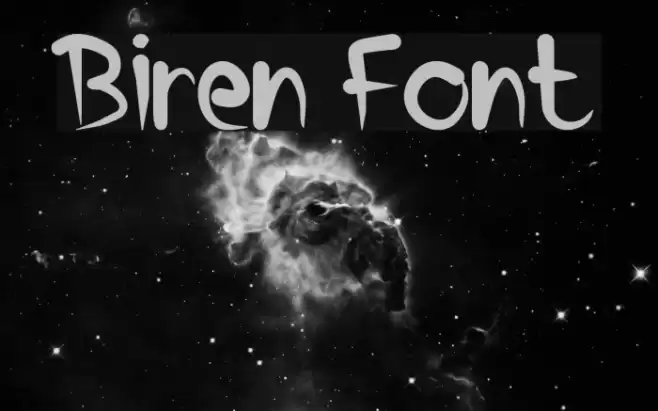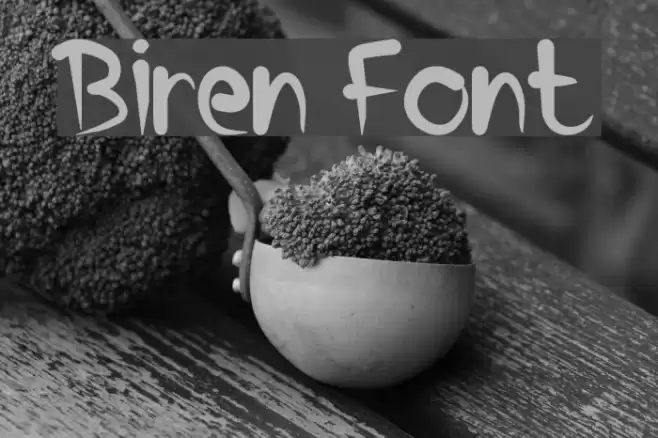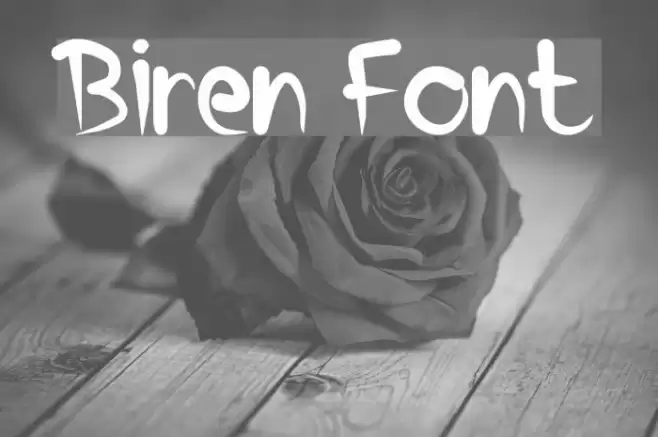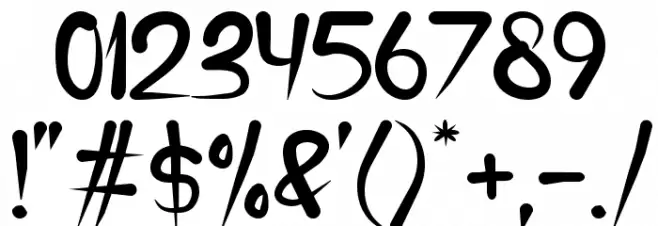
Biren Font
Biren Description
This font features a playful and dynamic style with a hand-drawn appearance. The letters are characterized by their irregular shapes and varying stroke thickness, giving it a lively and energetic feel. The uppercase letters have a bold presence, while the lowercase letters maintain a consistent flow. The numbers and special characters follow the same whimsical design, making the font suitable for creative and informal projects. The overall look is unique and eye-catching, perfect for adding a touch of personality to any design.
A playful, hand-drawn font with dynamic and irregular shapes from Uncategorized fonts.
- Proposed Projects: Ideal for children's books, greeting cards, posters, and playful branding.